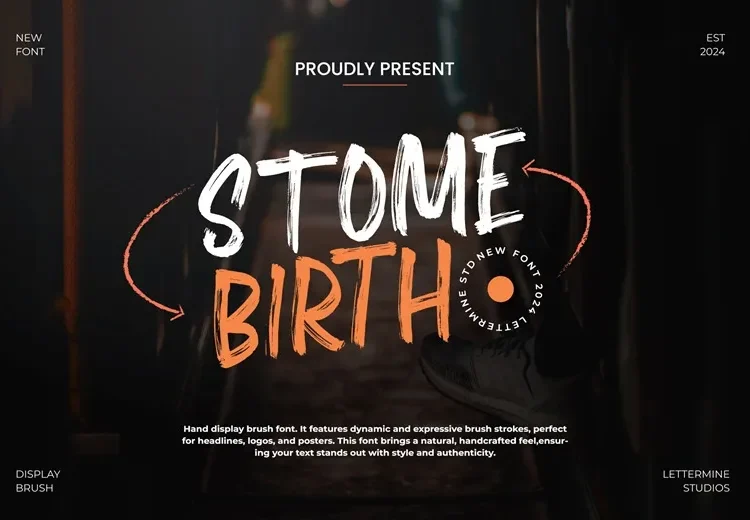
Stome Birth Font
Stome Birth is a fresh and bold brush script font that stands out with its lively and dynamic appearance. The font’s hand-drawn quality adds a unique, personal touch to any design, giving projects a natural and organic feel. Its expressive strokes make it ideal for creatives looking to add personality and authenticity to their work.
The versatility of Stome Birth makes it suitable for a wide range of uses, from branding and product packaging to invitation designs and event materials. Its bold style can enhance logos and headers, while the natural flow of the brushstrokes adds charm and character to more informal, personalized projects.
Because of its energy and unique look, this font can elevate any design by making it stand out while still feeling approachable and human. Whether you’re creating something for print or digital use, Stome Birth ensures your text conveys both boldness and warmth in equal measure.